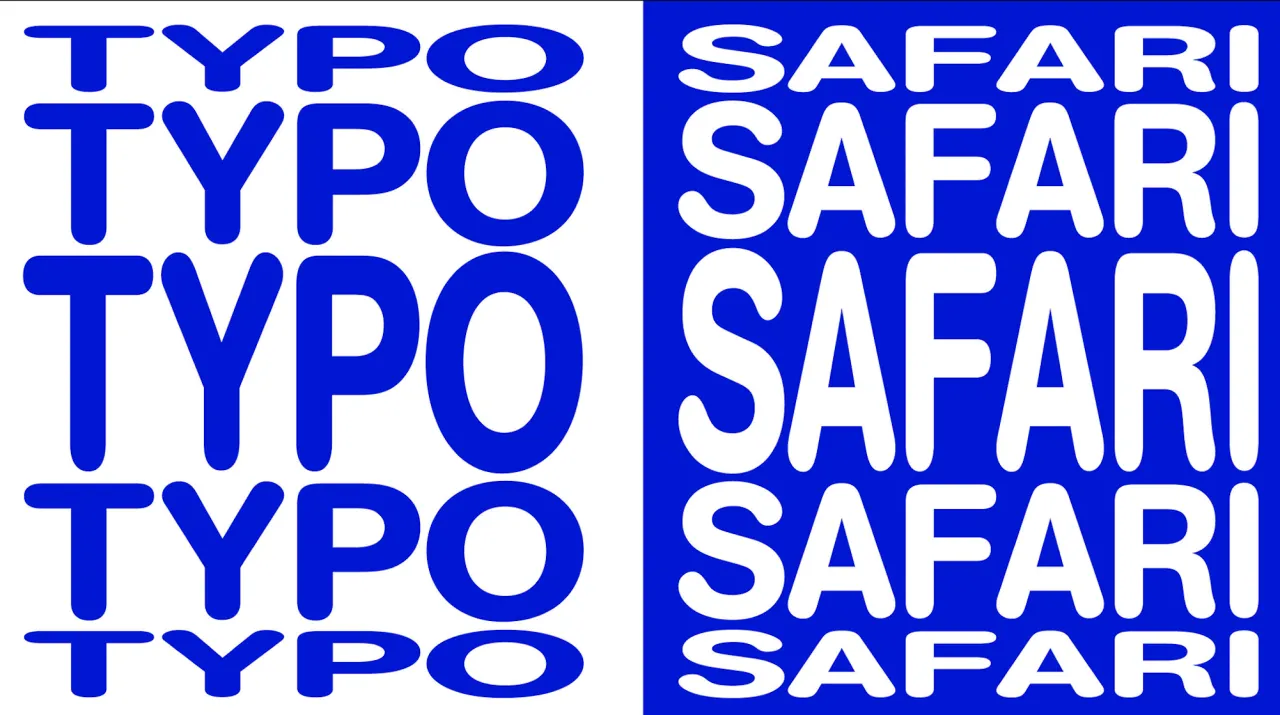
The Belgian Institute for Graphic Design organizes Typo Safari, a city walk starting at the Rivoli building in Uccle, discovering the different architectural periods, with special attention to shapes, colours and letters. The walk will be guided by Jo De Baerdemaeker, designer and typographer.
Jo De Baerdemaeker is leading a research project Typo Belgiëque tracing Belgium’s visual identities during the nineteenth and twentieth centuries. His research brings light upon the typographic letter foundries that are a missing link to the typographic history in Belgium, the Netherlands and Europe.
The walk is scheduled for up to 15 people and will occur on Sunday, May 30, 2021, at 11 am and at 3 pm. The walk will be in English and will last for one hour and a half approximately.